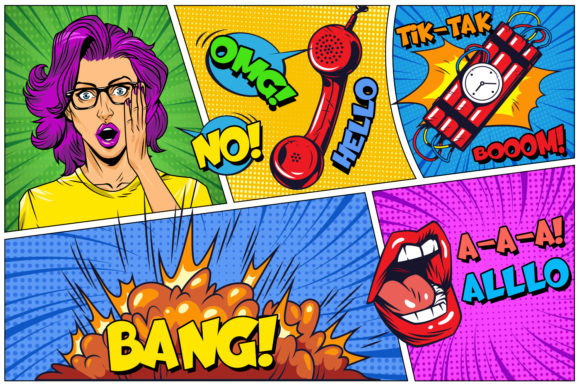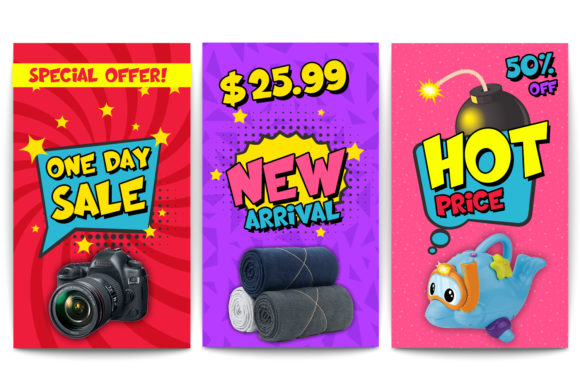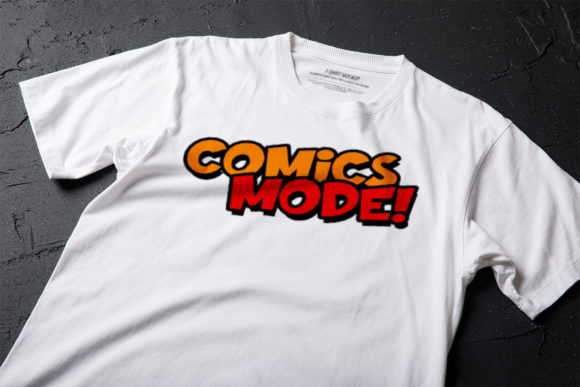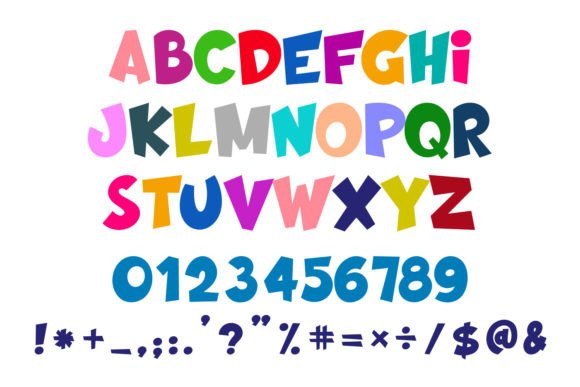
Introducing Fun Comics Font: Adding Quirkiness and Authenticity to Your Designs
Are you tired of using the same old fonts in your designs? Do you want to add a touch of quirkiness and authenticity to your creative projects? Look no further than the Fun Comics font! This enchanting display font is perfect for designers, crafters, and educators who want to make their work stand out.
The Fun Comics Font: A Standout in Any Project
Fun Comics embodies quirkiness and authenticity, making it the perfect font for creative projects that require a playful touch. Its fun style is sure to brighten up any kids or school project, and its versatility makes it suitable for a wide range of applications. Whether you’re designing a poster, a flyer, or a digital graphic, Fun Comics is sure to turn your creative idea into a true standout.
Key Features of the Fun Comics Font
- Quirky and Authentic Style: Fun Comics has a unique and playful style that is sure to grab attention.
- Display Font: This font is designed to make a statement, making it perfect for headings, titles, and other display text.
- No Default Shadow Effect: Unlike other fonts, Fun Comics does not come with a shadow effect by default. However, you can easily create this effect by duplicating the text and placing the duplicate behind the text yourself.
- Easy to Use: Fun Comics is a straightforward font to use, and its simplicity makes it accessible to designers of all skill levels.
Using Fun Comics Font in Your Designs
Fun Comics is a versatile font that can be used in a variety of design projects. Here are some ideas to get you started:
- Kids’ Projects: Add a playful touch to kids’ projects, such as posters, flyers, and worksheets.
- School Projects: Use Fun Comics to make school projects, such as presentations, reports, and essays, more engaging.
- Digital Graphics: Add a fun and quirky touch to digital graphics, such as social media posts, blog headers, and email newsletters.
- Crafting Projects: Use Fun Comics to add a personal touch to crafting projects, such as handmade cards, gift tags, and scrapbooking pages.
Tips and Tricks for Using Fun Comics Font
Here are some tips and tricks to help you get the most out of the Fun Comics font:
- Experiment with Colors: Fun Comics looks great in a variety of colors, so don’t be afraid to experiment and find the perfect hue for your design.
- Play with Text Sizes: Fun Comics is a display font, so make the most of its impact by using it in larger text sizes.
- Add Texture and Patterns: Add texture and patterns to your design to give it an extra layer of depth and interest.
- Combine with Other Fonts: Fun Comics can be paired with other fonts to create a unique and visually appealing design.
In conclusion, the Fun Comics font is a fantastic addition to any designer’s toolkit. Its quirky and authentic style makes it perfect for creative projects that require a playful touch. With its ease of use, versatility, and range of applications, Fun Comics is sure to become a favorite font among designers, crafters, and educators. So why not give it a try and see how it can add a touch of quirkiness and authenticity to your designs?